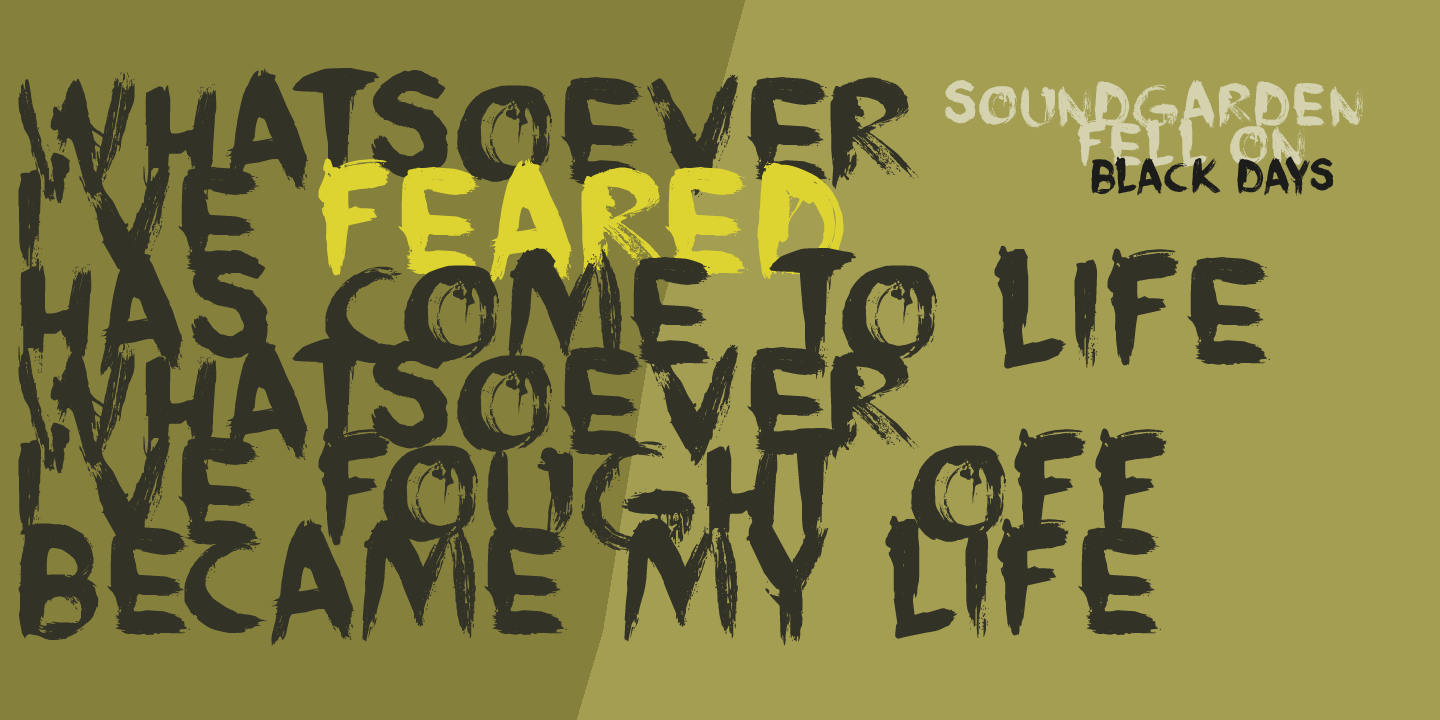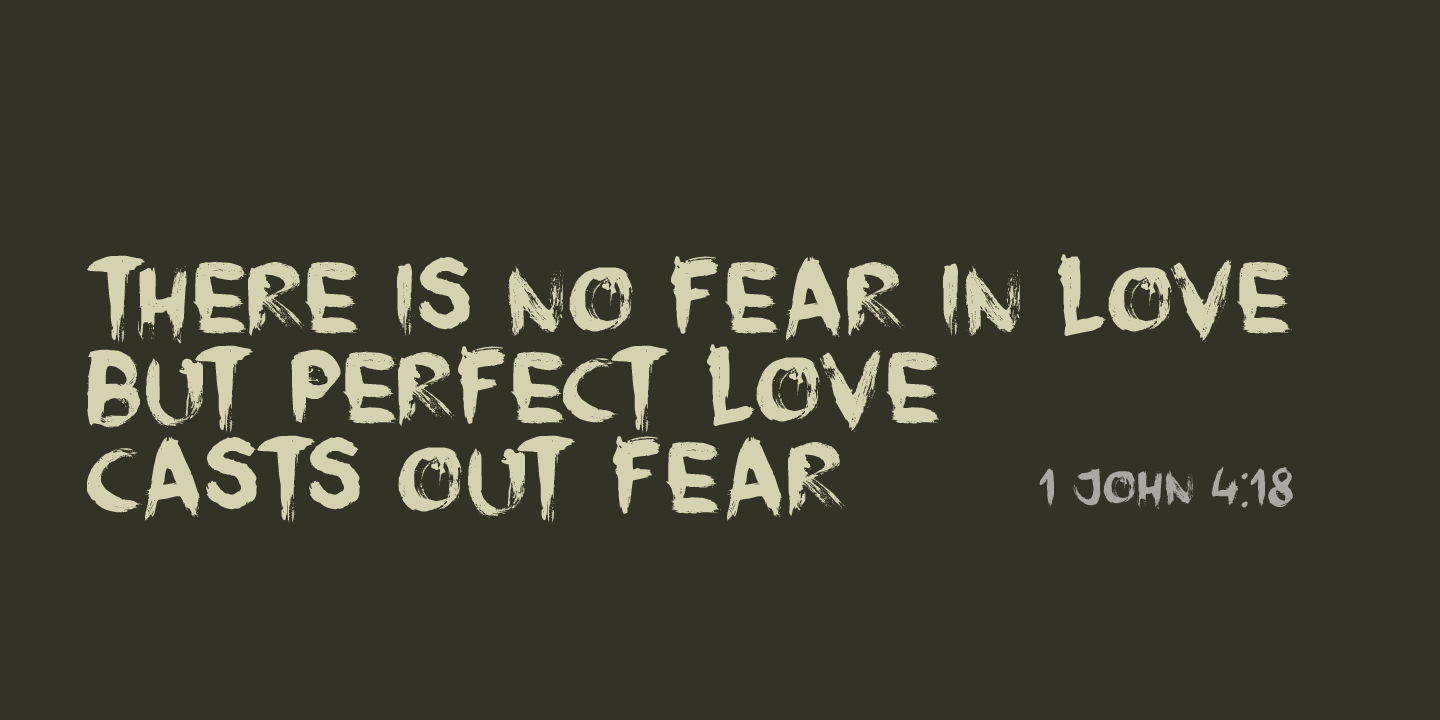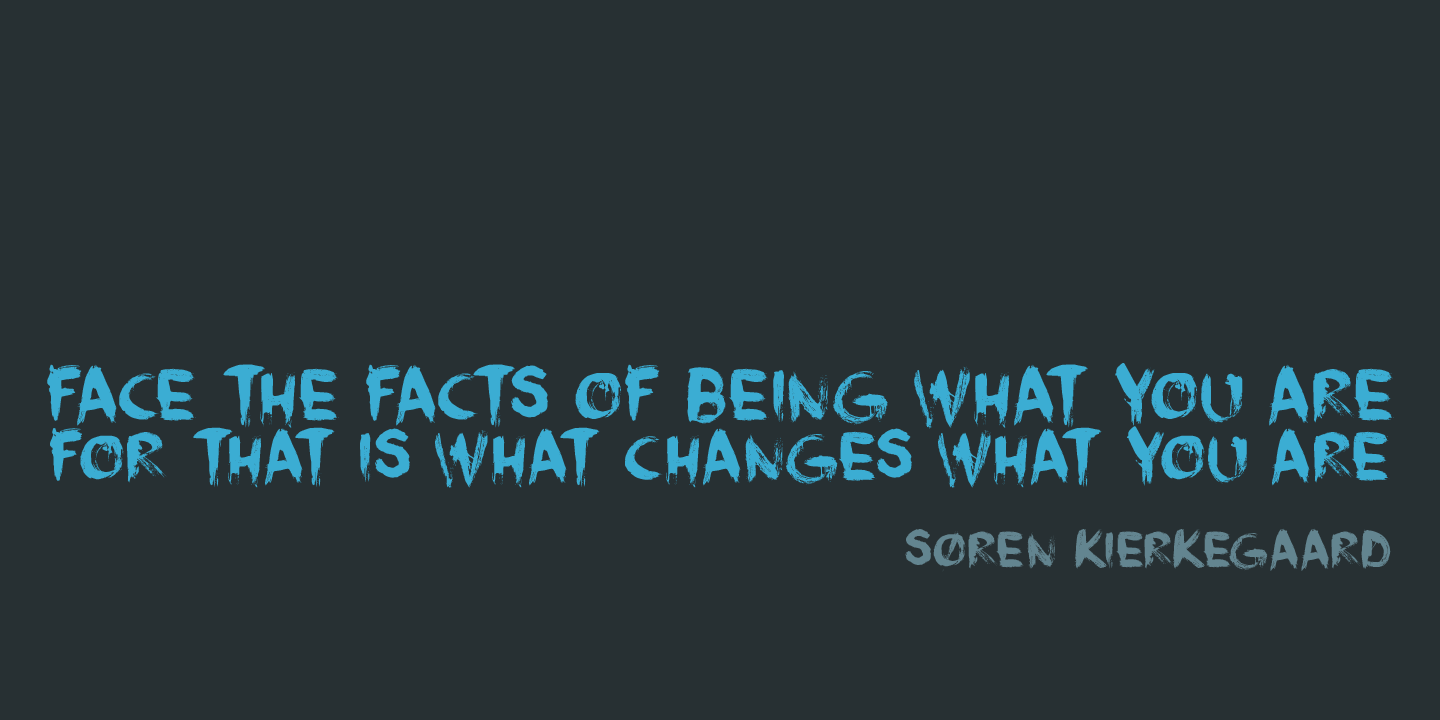
Face Your Fears II
When I created Face Your Fears some years ago, it was an instant hit. I have seen it on Gangsta Rap albums, metal albums, books and on movie posters. It has been used for T-shirts, websites and, believe it or not, for a beer label as well. I have always toyed with the idea of redoing the original font, as some of the glyphs were a bit off. Face Your Fears II is similar in nature to the original font, but comes with a lot of improvements, has slightly altered glyphs and (probably) better kerning. But maybe, just maybe, it isn't your cup o' tea. In that case, you can always just go for the original!
Face Your Fears II by Hanoded